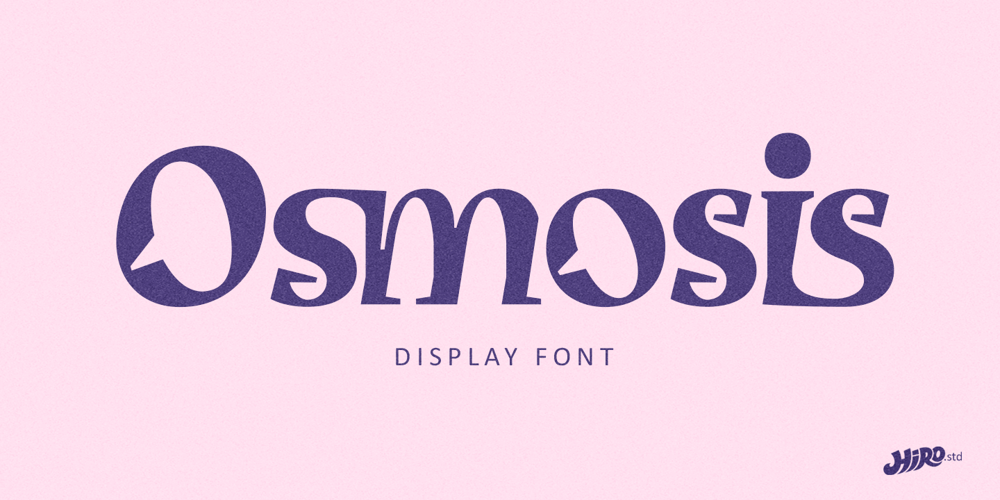
Osmosis
Osmosis font
Osmosis Font Family was designed by Chairul Ashar and published by HIRO.std. Osmosis contains 1 styles and family package options. Osmosis is Display Font This font describes about modern life, stylist, modern, retro, vintage and easy to use. Osmosis inspired by modern life, retro and vintage. FEATURES- Uppercase and Lowercase letters- Numbering and Punctuations- Support Ligatures- PUA Encoded Characters- Multilingual Support- Works on PC or Mac- Simple Installation USEOsmosis Display Font works great in Logotype, T-shirt/ Apparel Design, Title, Poster and Magazine. Enjoy using!Thanks. HIRO.std